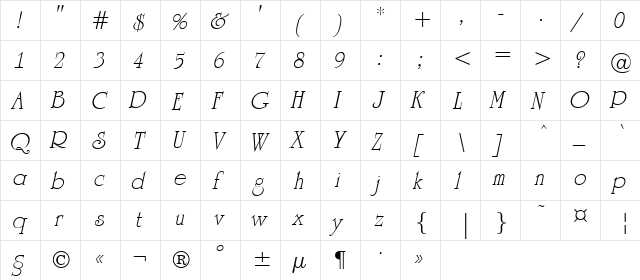
a_Romanus Italic
Design Context for a_Romanus Typeface
a_Romanus is a composed and adaptable typeface that performs quietly and consistently across a wide range of design contexts. The slanted form adds forward momentum and visual energy.
Pro Tip: Try a_Romanus for annotation and caption copy alongside an upright companion — the contrast in angle creates a dynamic but ordered typographic system.